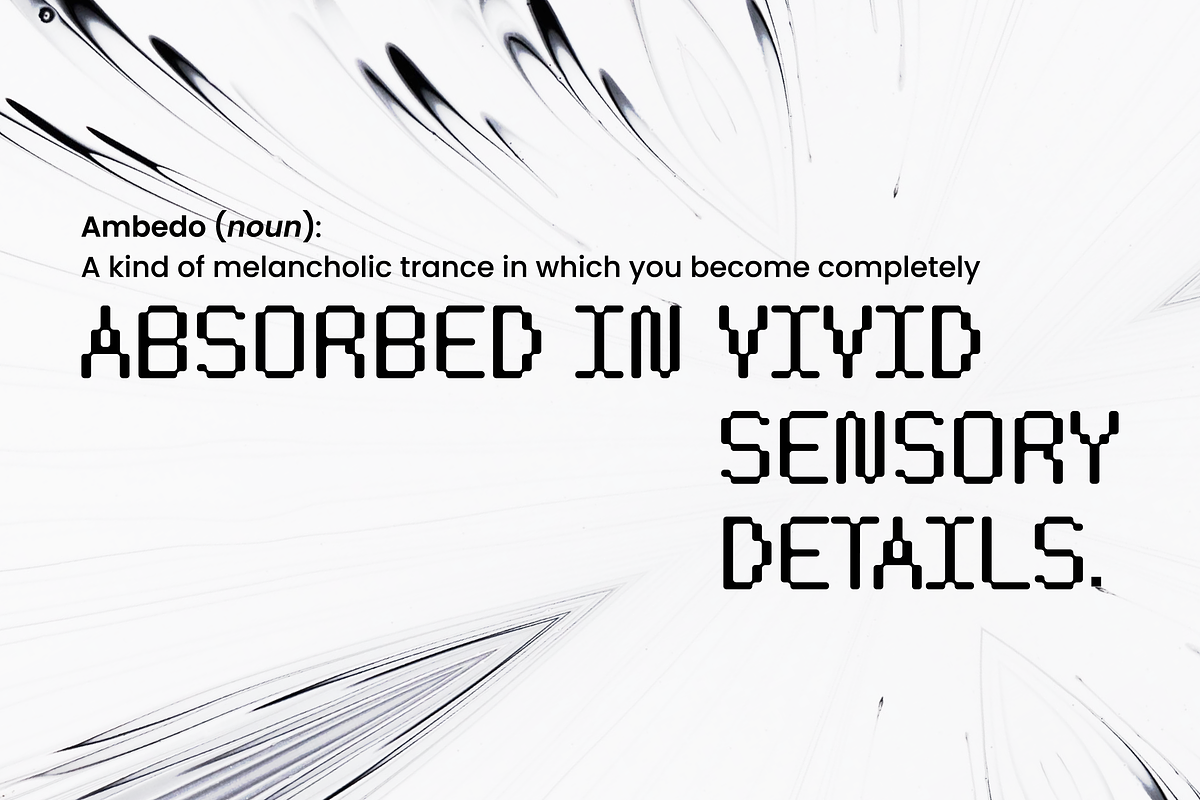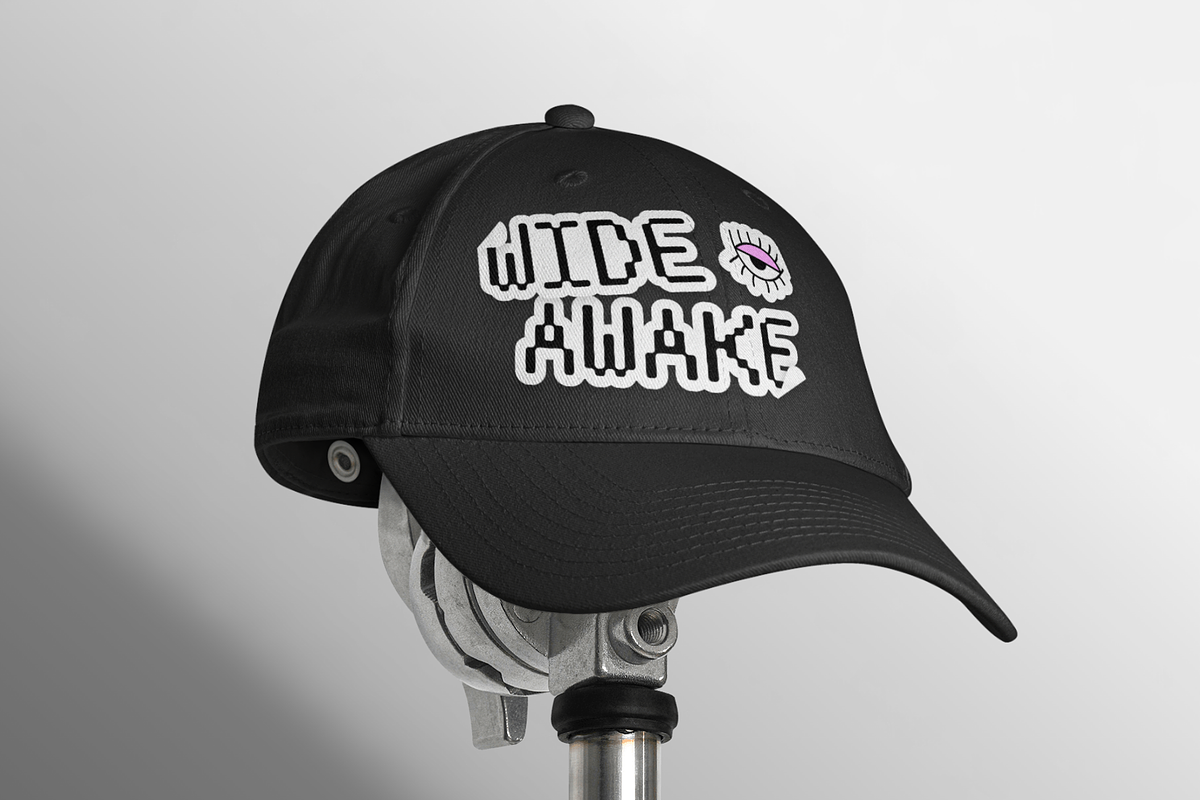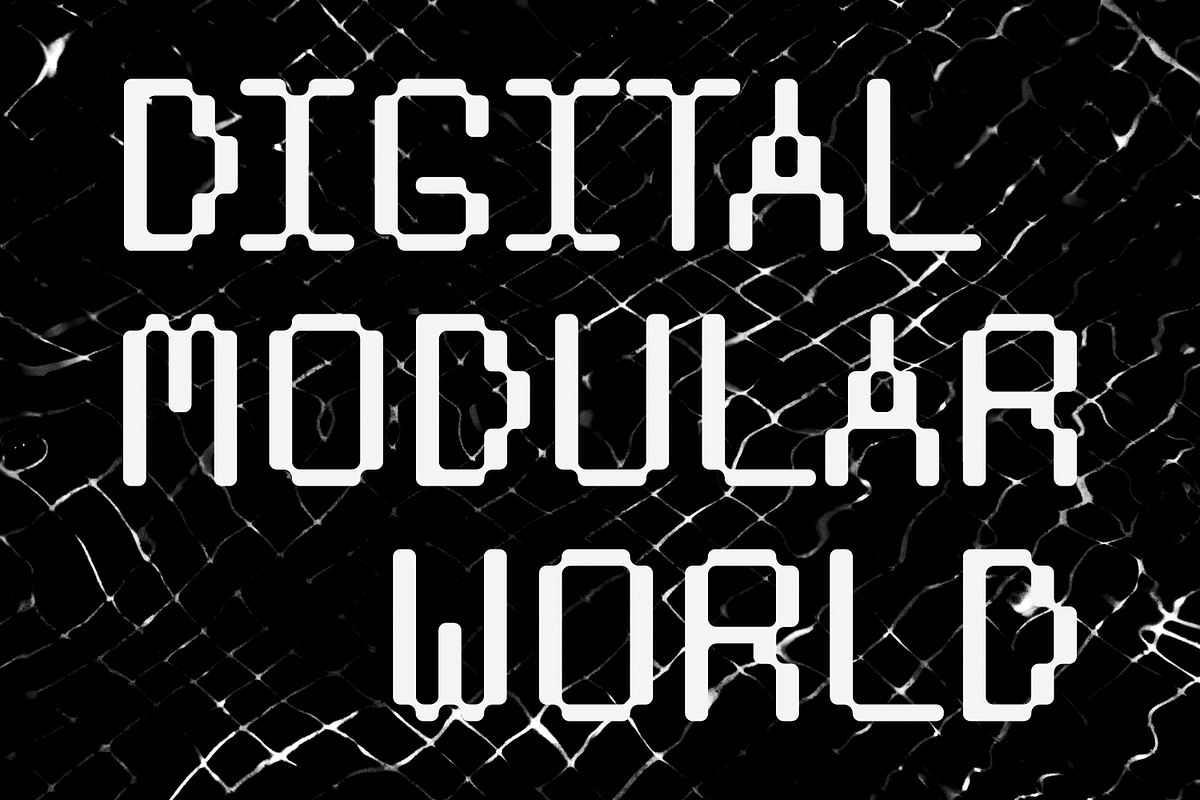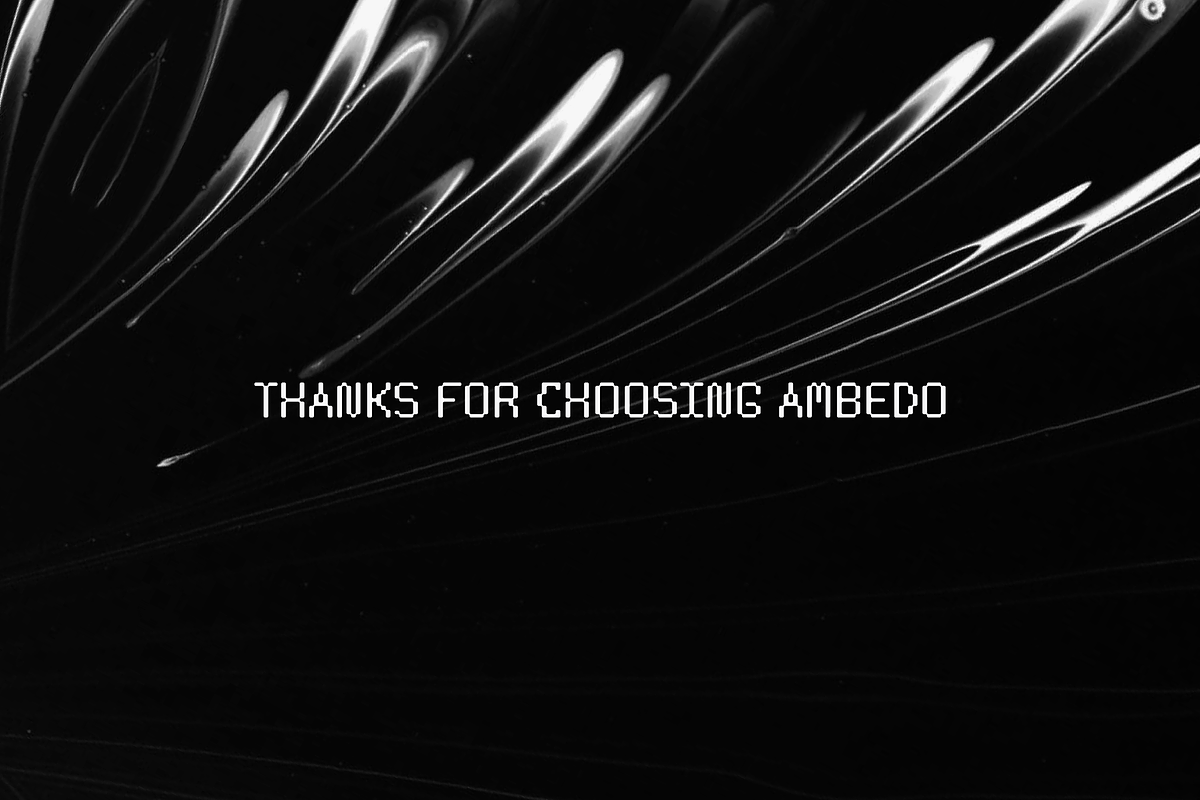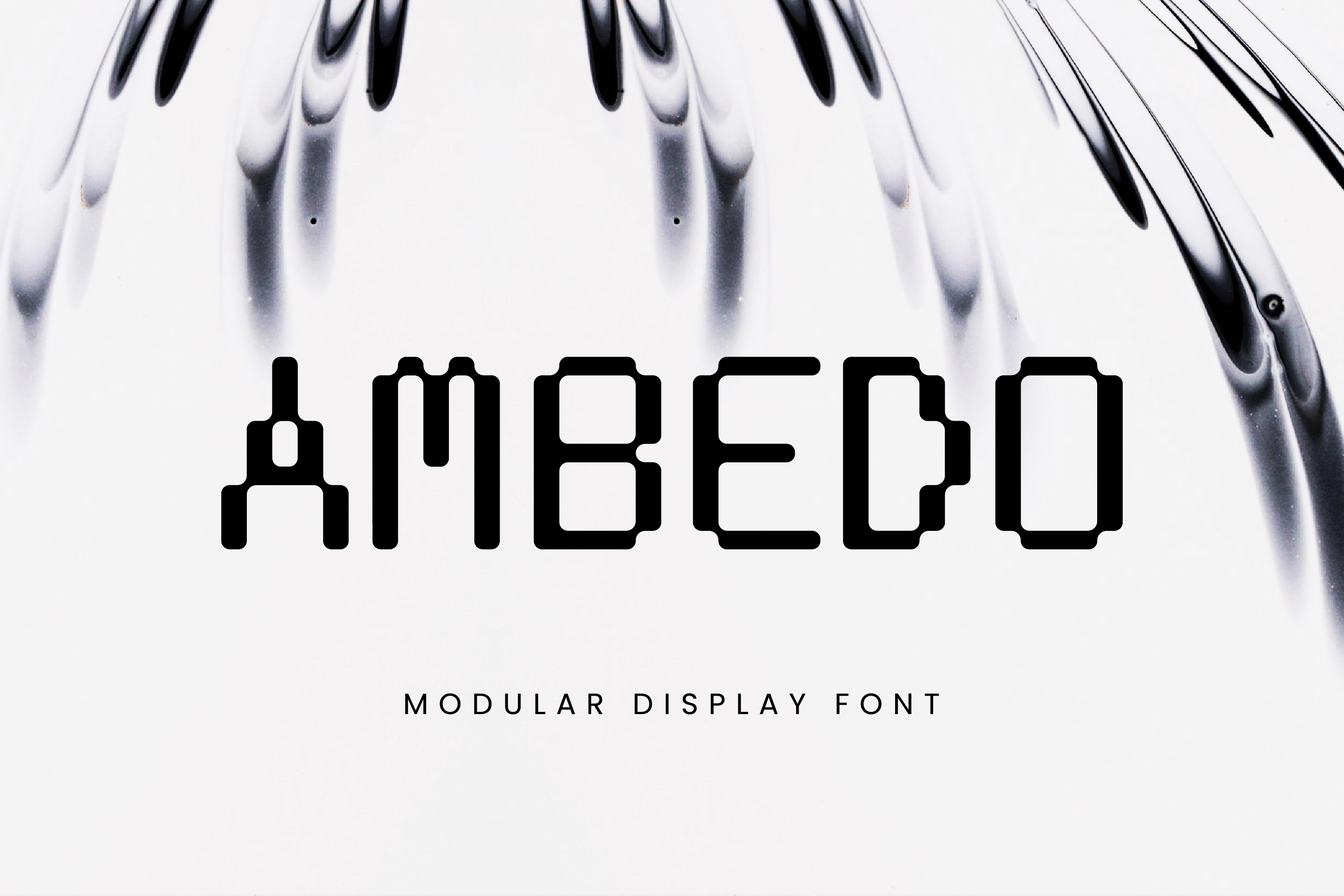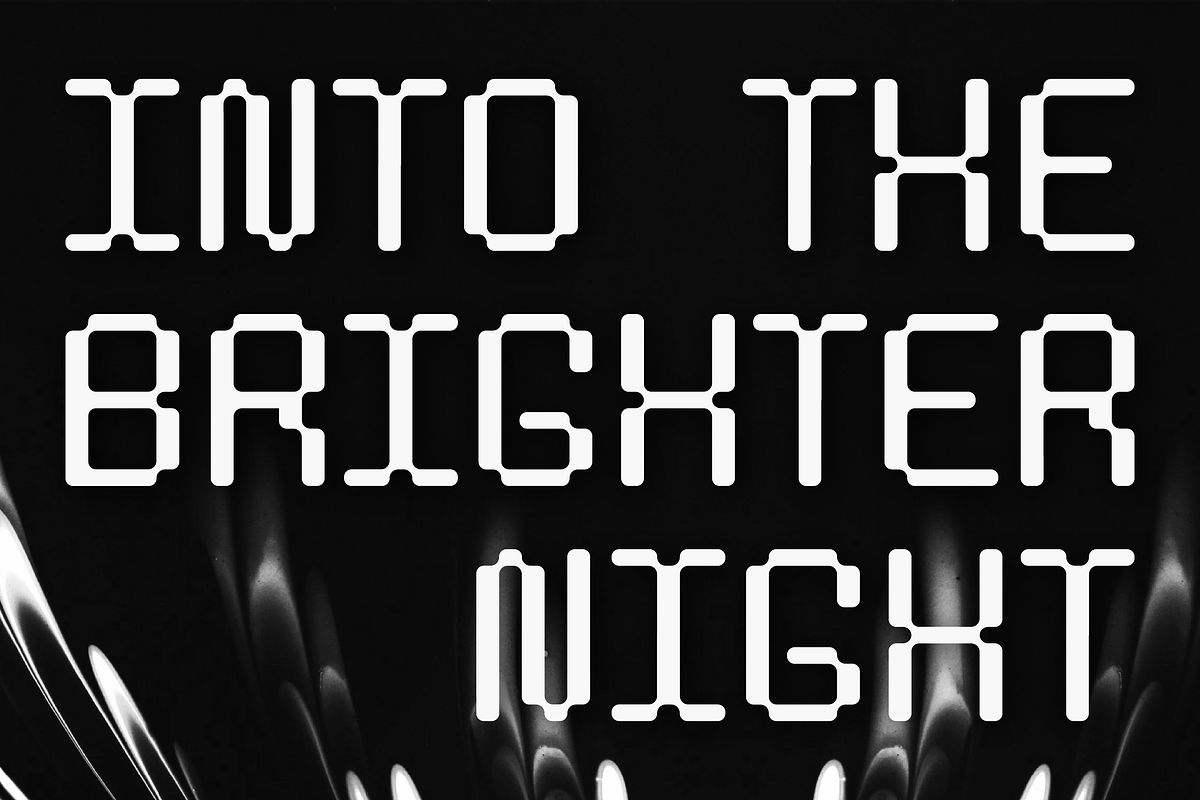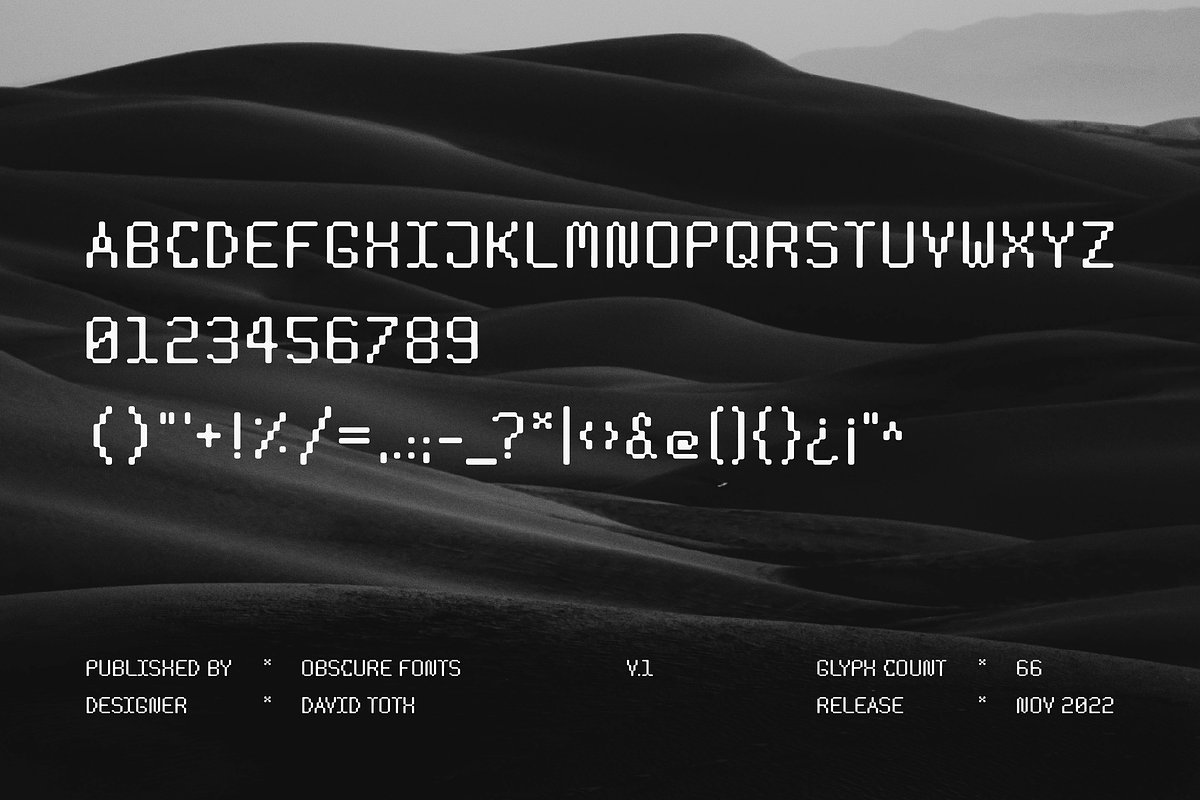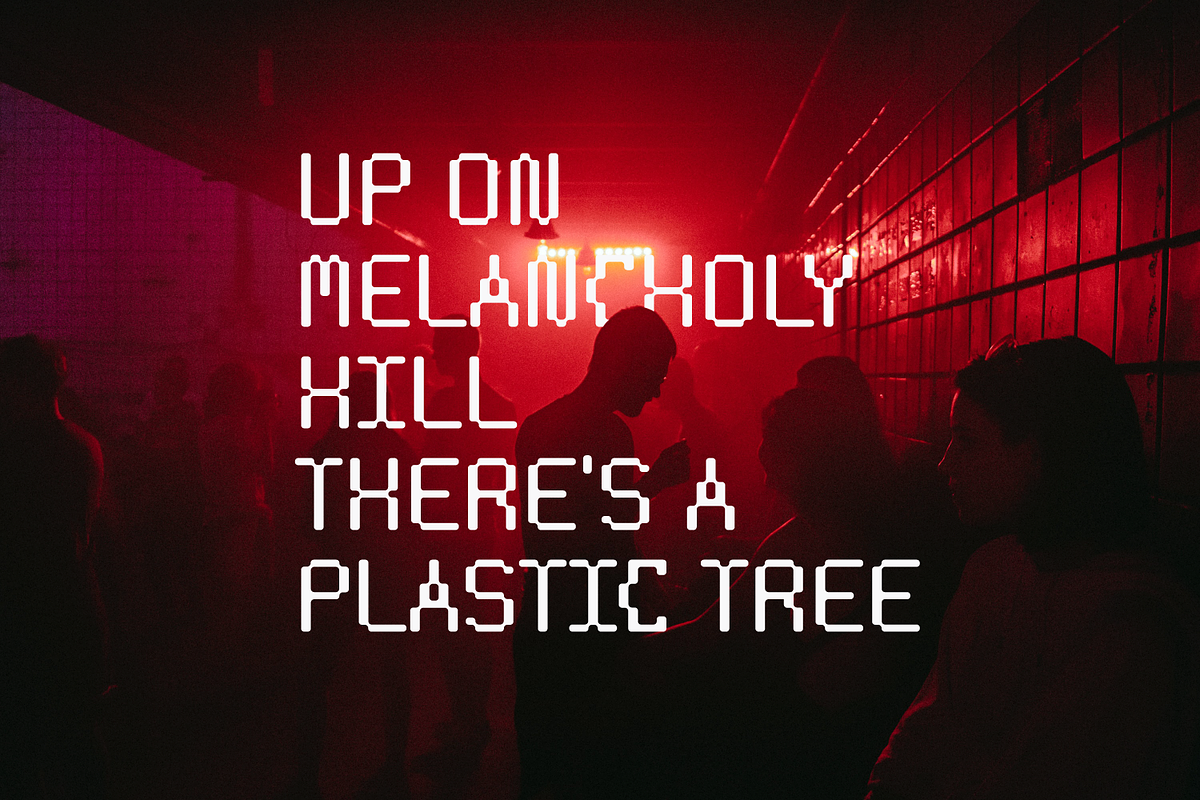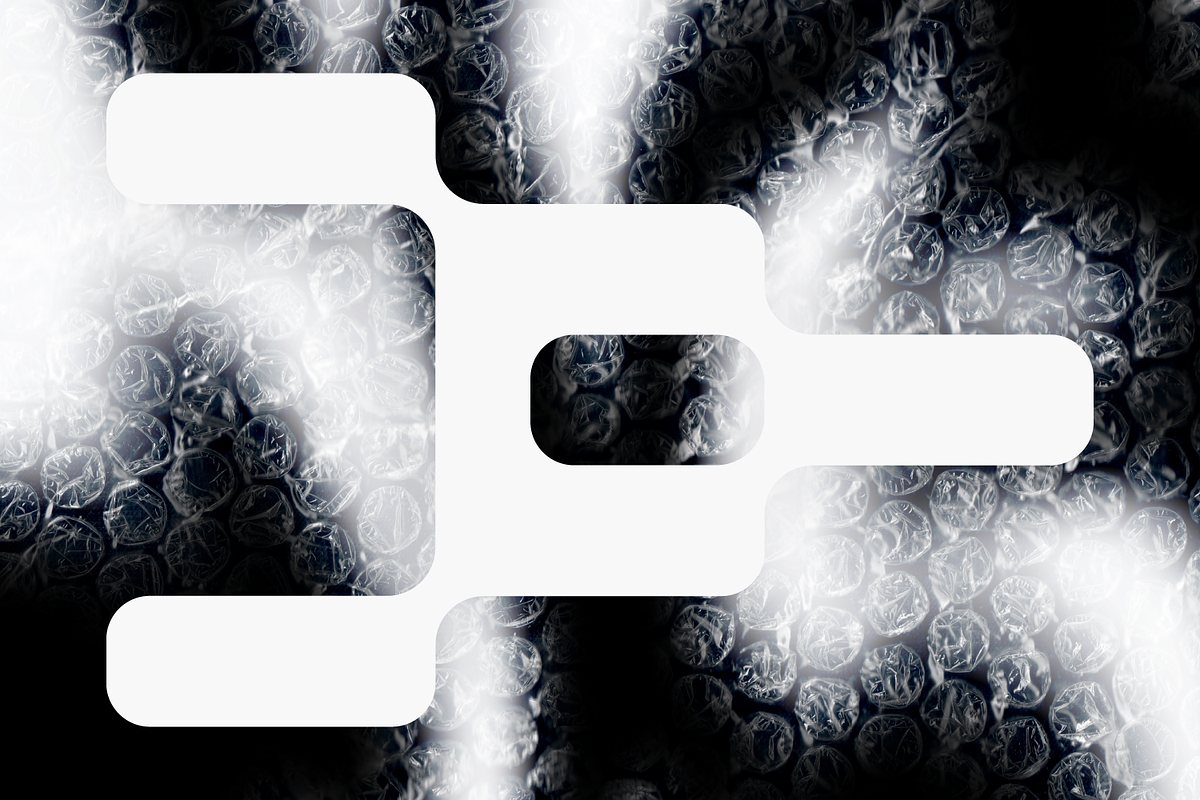
Ambedo | Modern Modular Display Font
What is Ambedo? Ambedo is a modern modular display font, composed of 67 glyphs, all designed from the same base shape. It is a monospaced font, with a flowing digital feel to it, designed to be a mixture of futuristic and retro.
What should I use it for? Ambedo is not meant to be used for longer texts, but rather for special design scenarios, such as logos, branding, prints, shirts, stickers and other short-form usecases. Use Ambedo when you need your text to be impactful, with a distinct, neo-nostalgic feeling.
What does Ambedo mean? Ambedo (noun): A kind of melancholic trance in which you become completely absorbed in vivid sensory details—raindrops skittering down a window, tall trees leaning in the wind, clouds of cream swirling in your coffee—briefly soaking in the experience of being alive, an act that is done purely for its own sake.
Designed by David Toth - Brand Designer